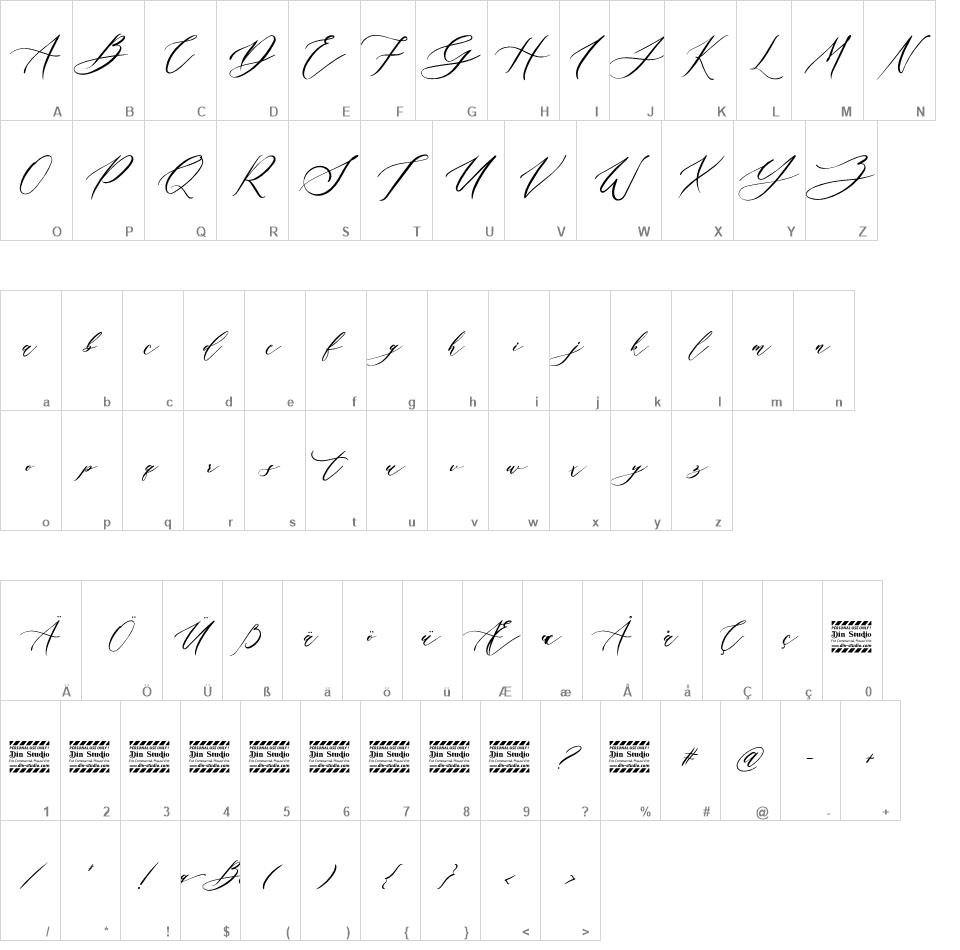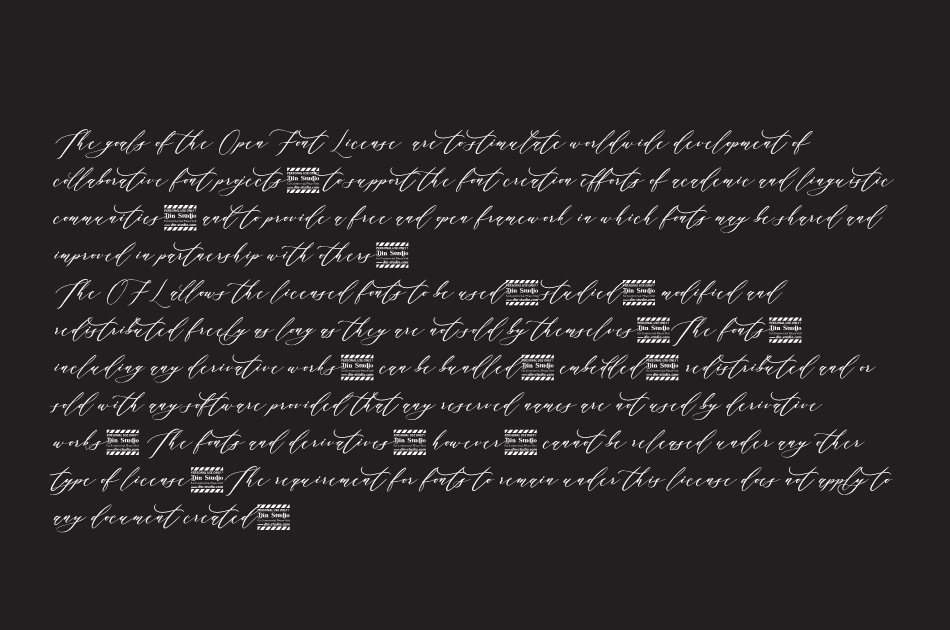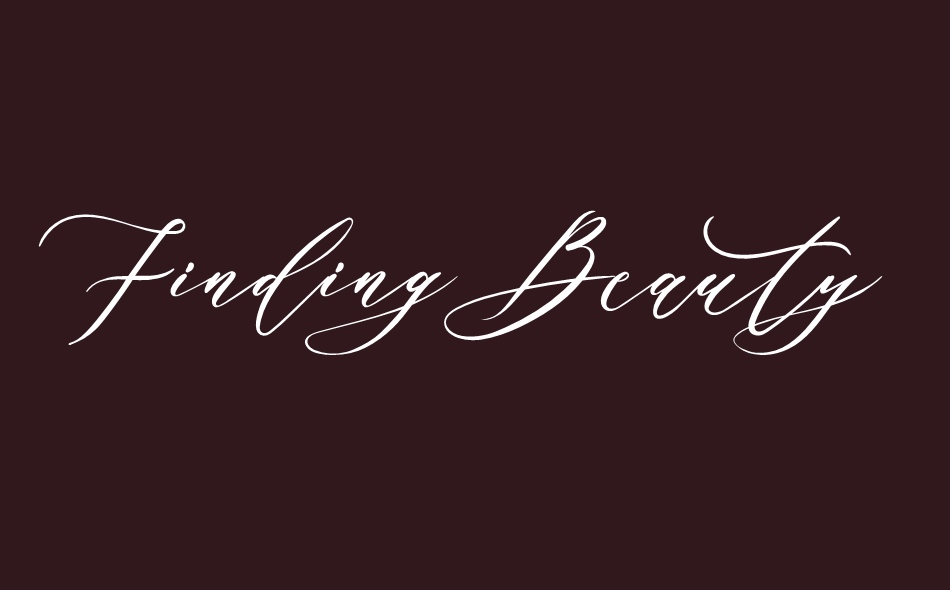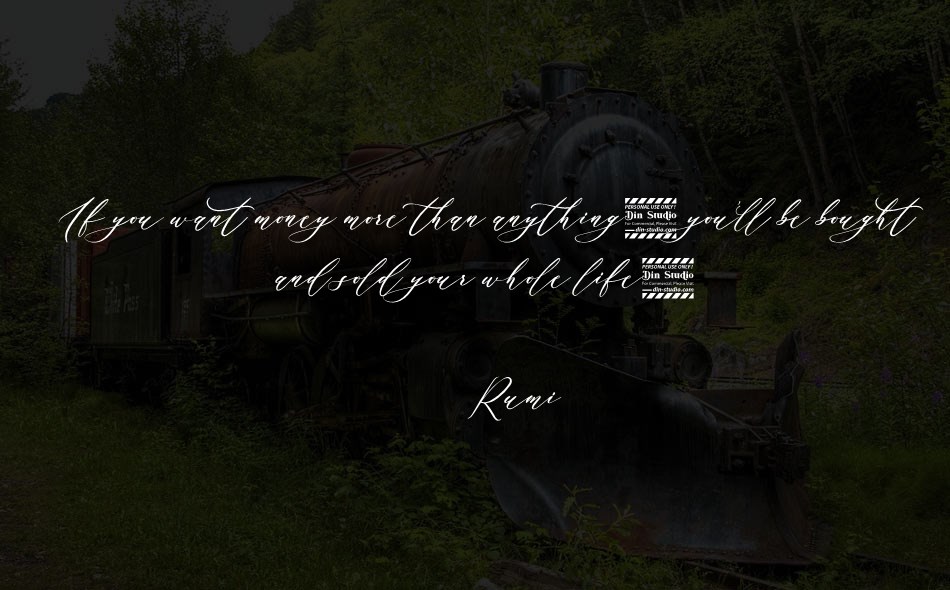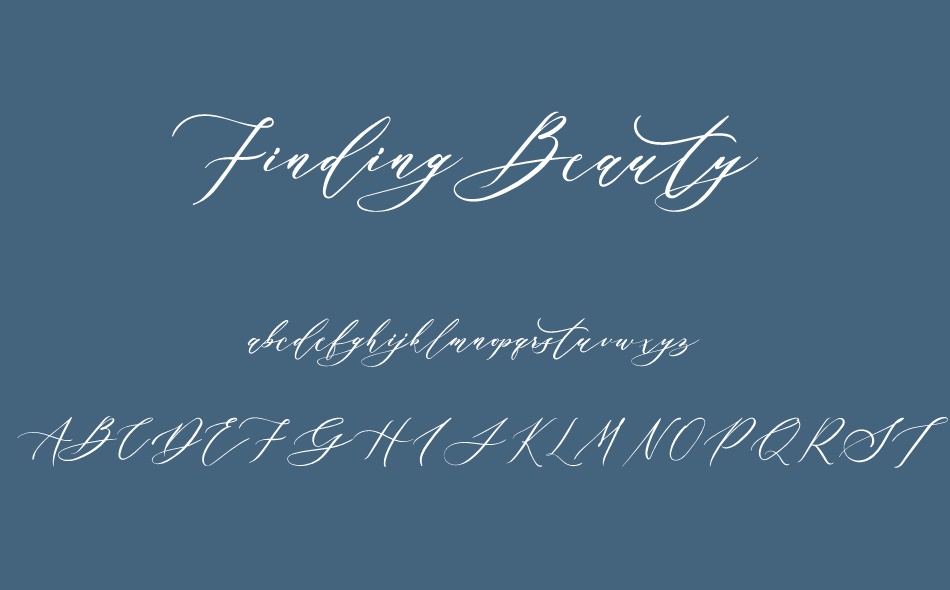
Finding Beauty font
Introducing Finding Beauty- A Script Font
Finding Beauty is designed and carefully handcrafted elegantly and gracefully to embrace your project.
This font will never go wrong for your audience, clients, guests or anyone around you! Use it for headings,logos, business cards, printed quotes, invitations of all sorts, cards, packaging, and your website or social media branding.